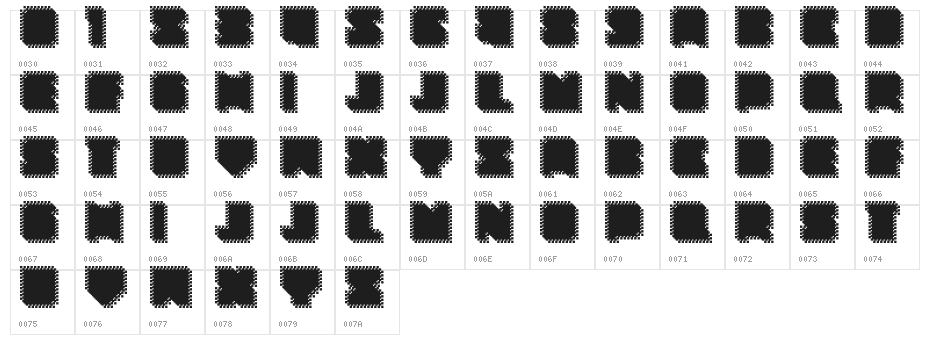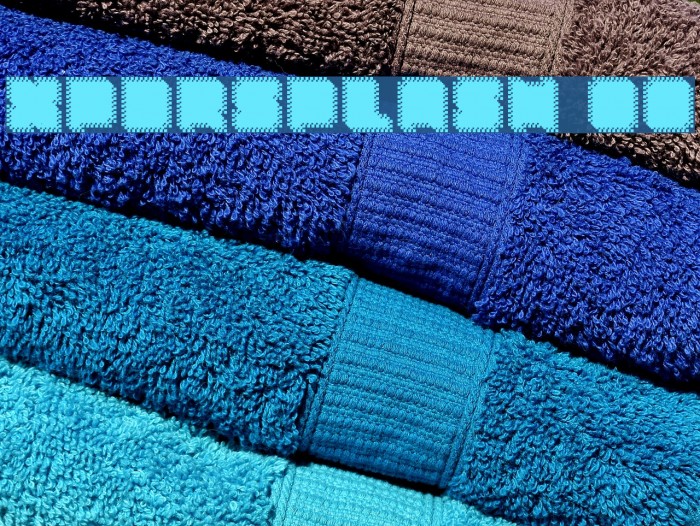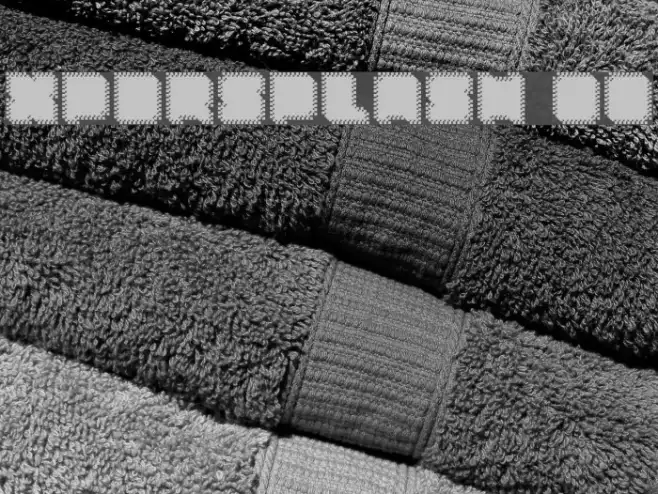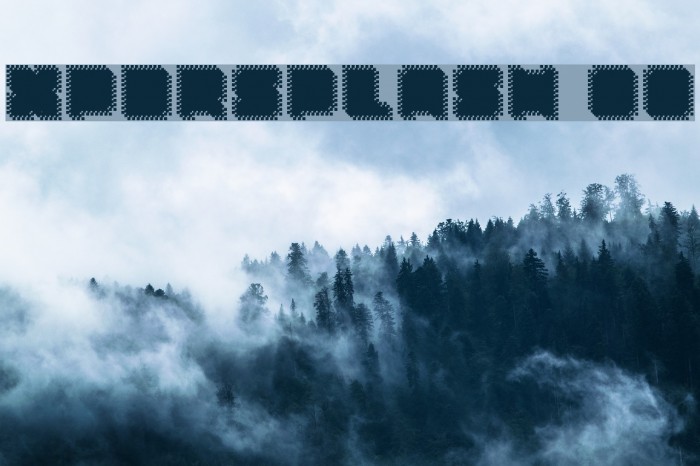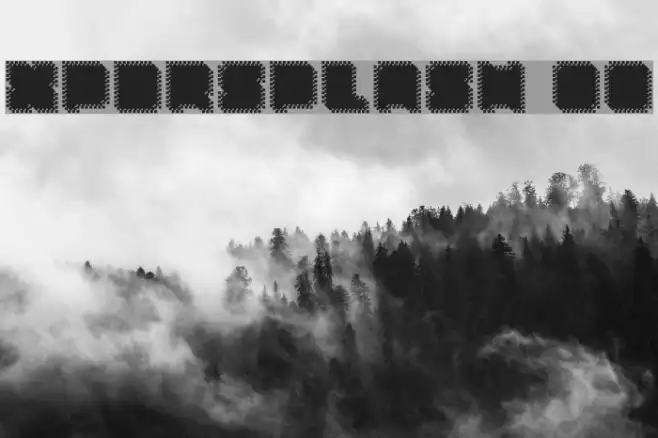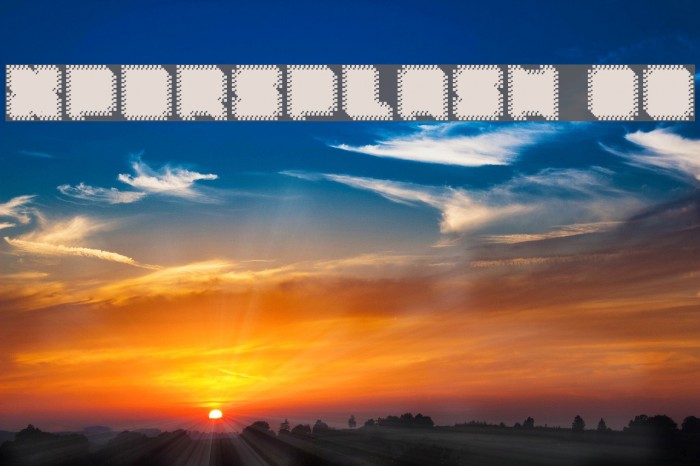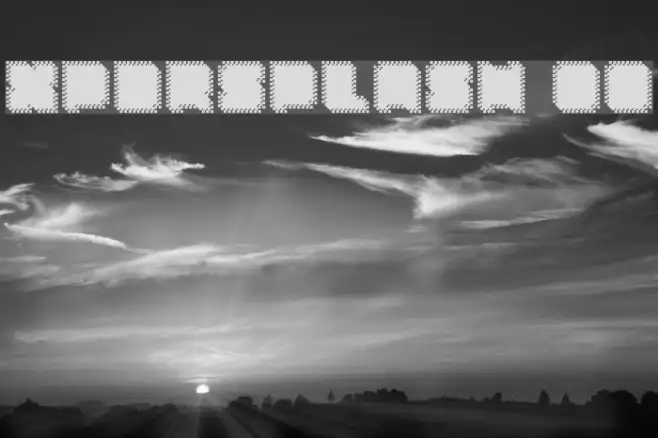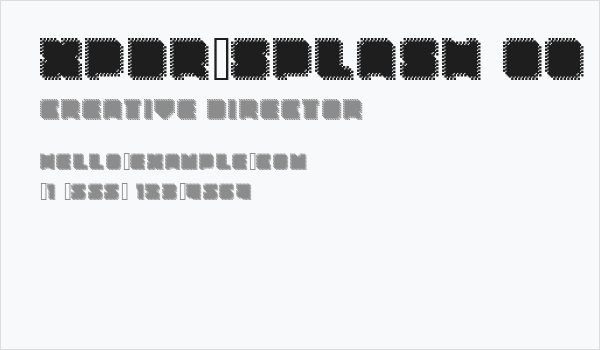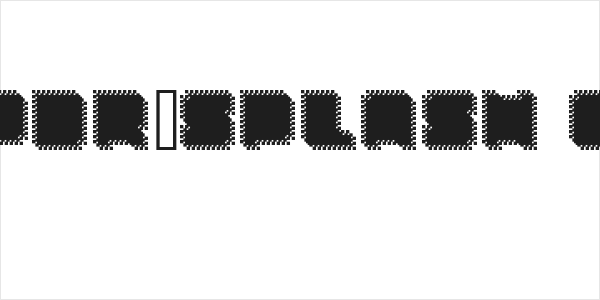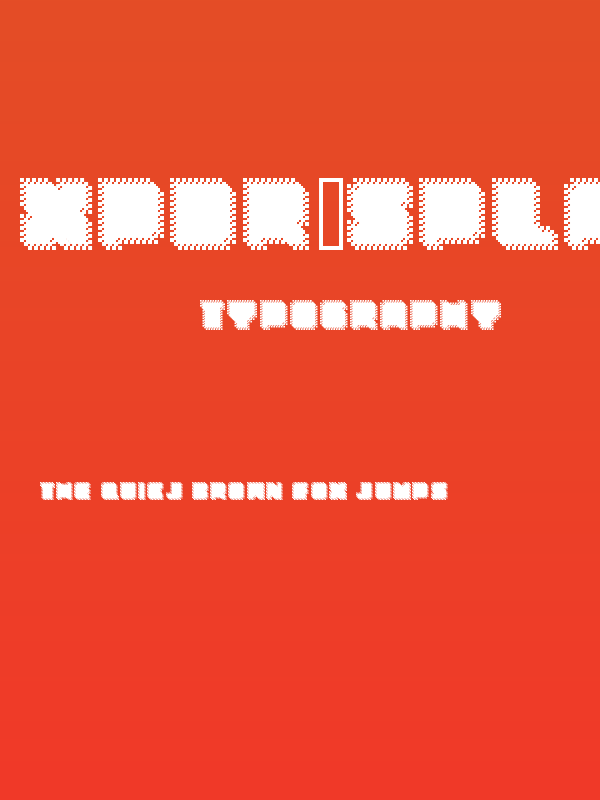
xpdr_splash 00 Font
xpdr_splash 00 Description
This font features a bold, pixelated design with a distinct retro aesthetic. Each character is composed of a series of small, square dots that create a digital, blocky appearance. The uppercase and lowercase letters maintain a consistent style, with sharp edges and uniform spacing. The numbers and special characters follow the same design principles, ensuring a cohesive look across all elements. This font is ideal for projects that require a vintage or tech-inspired feel, offering a unique and eye-catching visual impact.
| Proposed Projects | Ideal for video game graphics, tech-themed posters, retro-style branding, and digital art projects. |